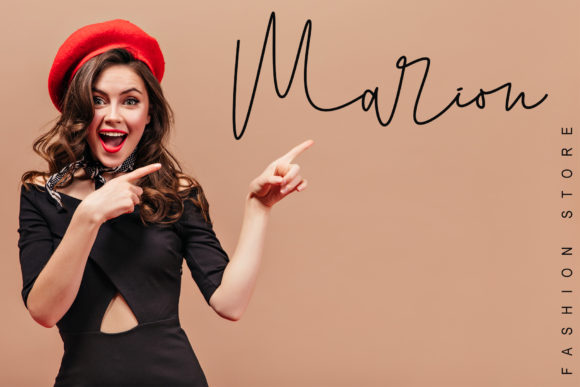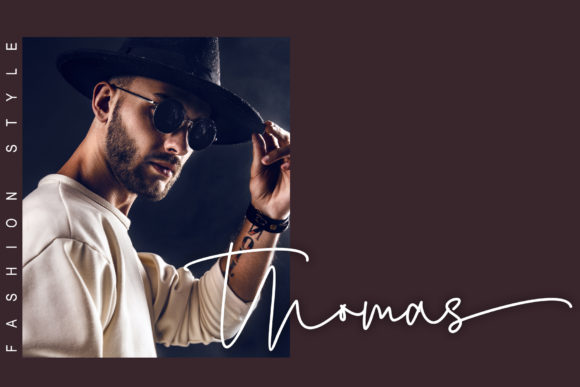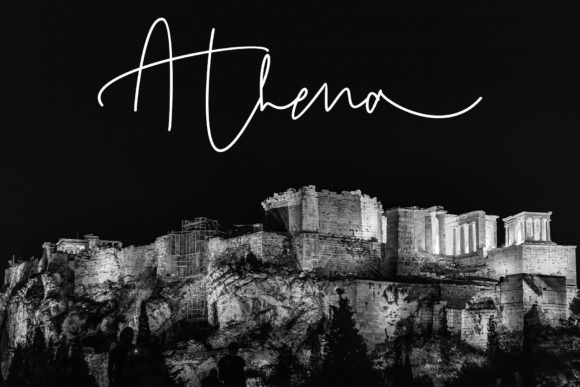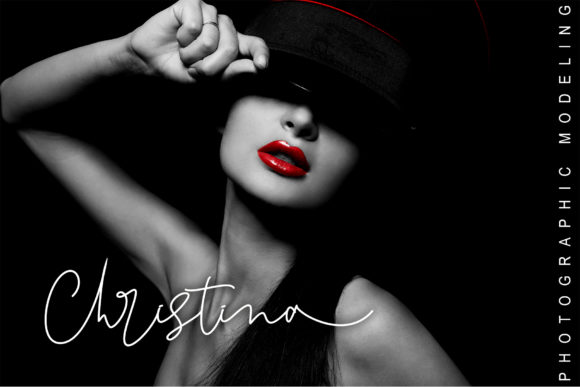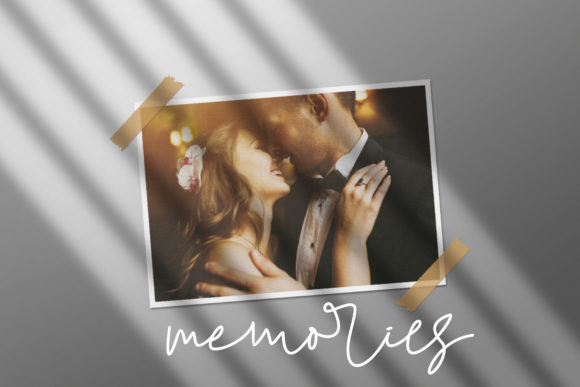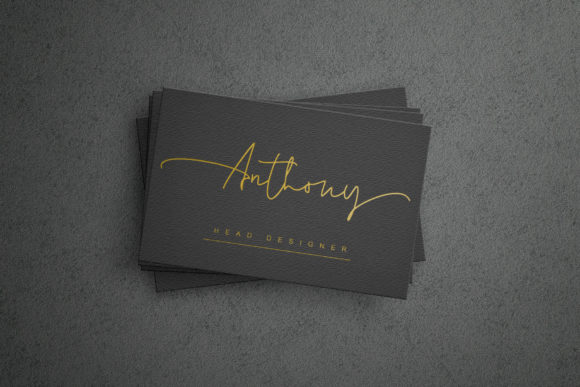
Introduction to Michael Signature Font Font
Fonts play a crucial role in design, and the Michael Signature Font font is a typeface that brings both character and versatility to any project. Whether you’re working on a branding project, a website, or a print design, the Michael Signature Font font offers a unique style that can elevate your work.
Michael Signature is a thin and cursive handwritten font.
It looks beautiful on a variety of designs requiring a personalized style, such as wedding invitations, thank you cards, weddings, greeting cards, logos and so on This font is PUA encoded which means you can access all of the glyphs and swashes with ease.
Key Features of Michael Signature Font Font
Why Choose Michael Signature Font Font?
The Michael Signature Font font is more than just a typeface – it’s a design tool that helps you communicate your message with style and clarity. Its unique character set and versatile design make it suitable for a wide range of applications, from elegant invitations to bold headlines.
With its carefully crafted letterforms and balanced proportions, the Michael Signature Font font ensures readability and visual appeal across all mediums.
What makes Michael Signature Font font special?
The Michael Signature Font font stands out with its unique design, exceptional readability, and versatility across various design applications.